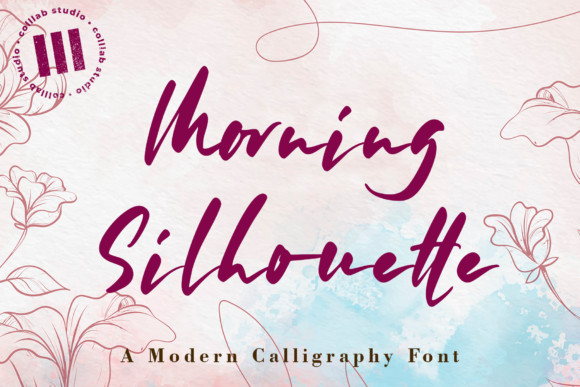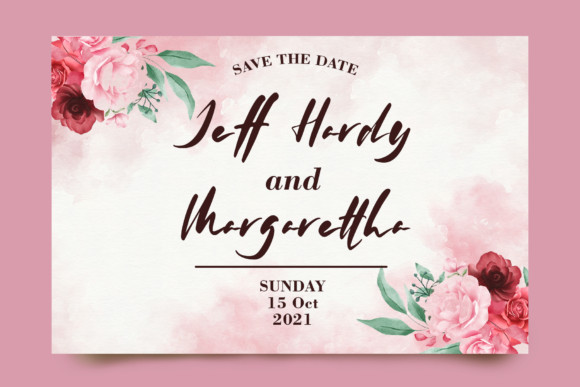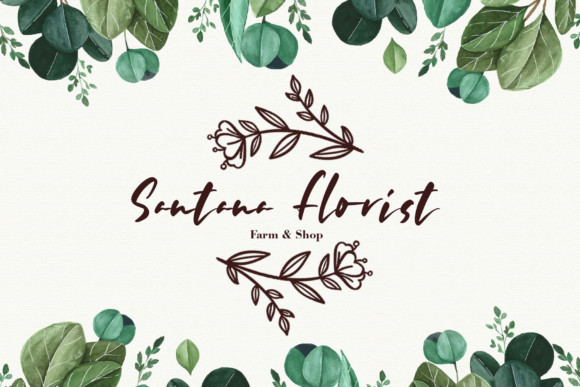
Morning Silhouette Font
Morning Silhouette is a flowing and cute handwritten font.This is a beautiful combination of timeless elegance and authentic calligraphy. It features an incredibly classic style, while still keeping a friendly feel. Morning Silhouette is the perfect font for making original and outstanding designs.